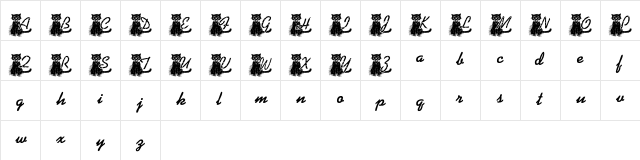
KG BLACKAT Regular
Design Context for KG BLACKAT Typeface
KG BLACKAT is a composed and adaptable typeface that performs quietly and consistently across a wide range of design contexts.